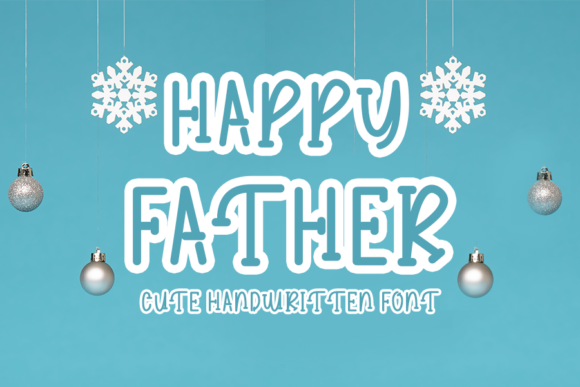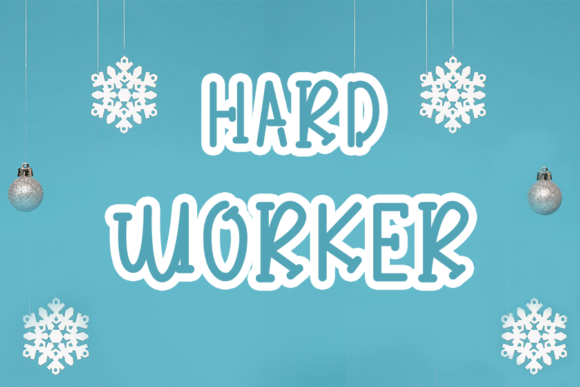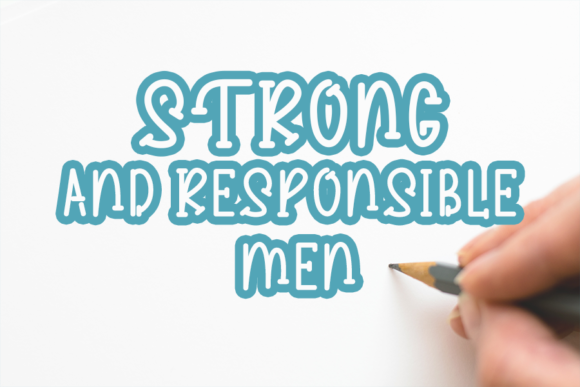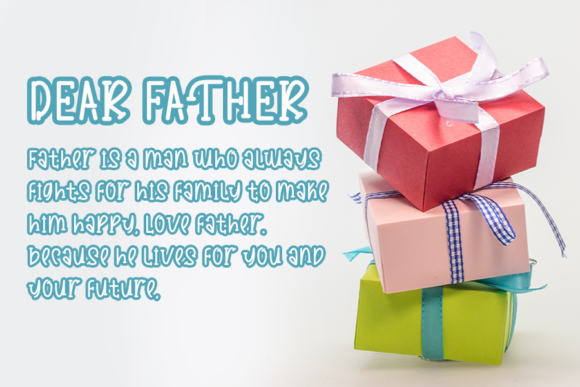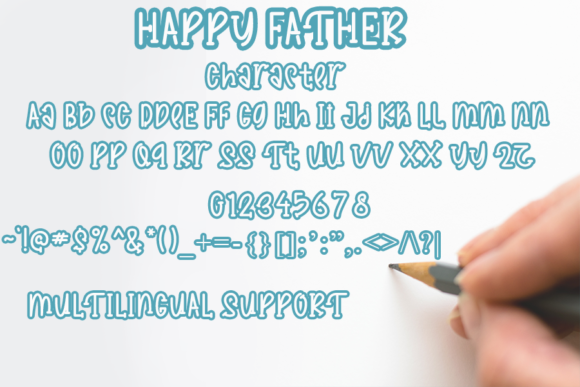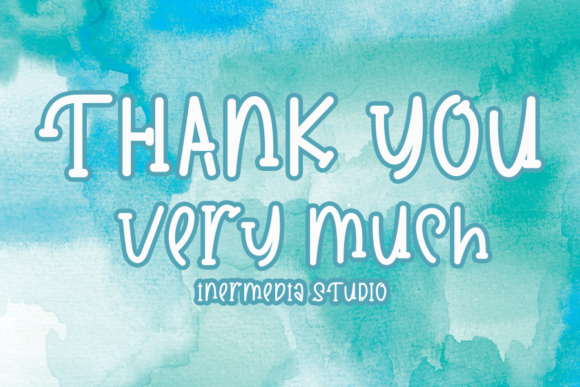
Happy Father Font
About Happy Father Font
Happy Father is a sweet and friendly handwritten font, designed to easily become a true favorite. Be creative with its authentic and unique style, and use it to brighten up children’s and school projects.